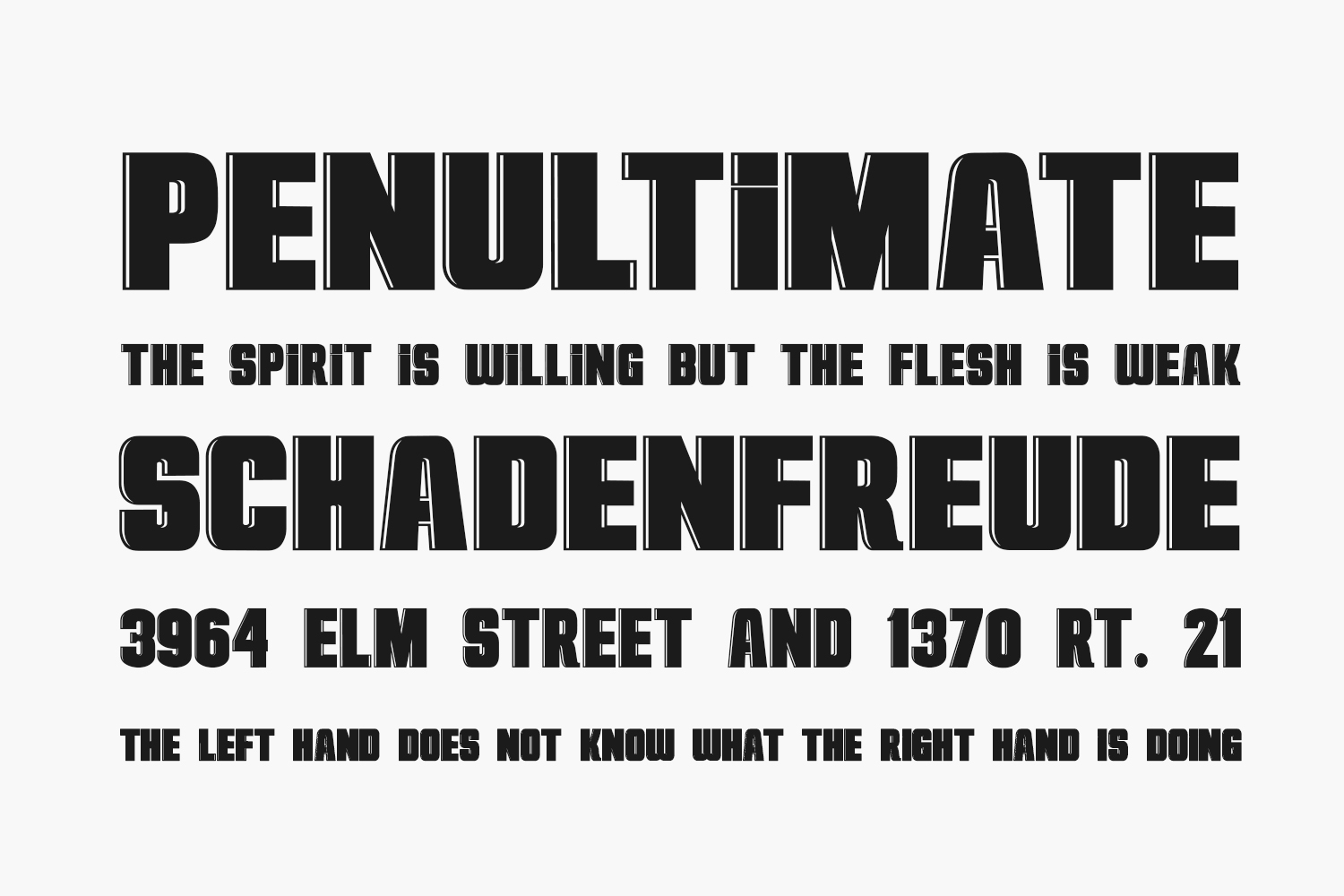
Ribheud Free Font is a bold and chunky display font that exudes simplicity and confidence. Its thick, uniform strokes give it a striking and powerful presence, making it perfect for headlines, titles, and other attention-grabbing text. The font’s clean lines and minimalistic design give it a modern and timeless appeal, making it versatile and suitable for a wide range of projects. Whether you’re creating a poster, brochure, or website, Ribheud Free Font is sure to make a bold statement.